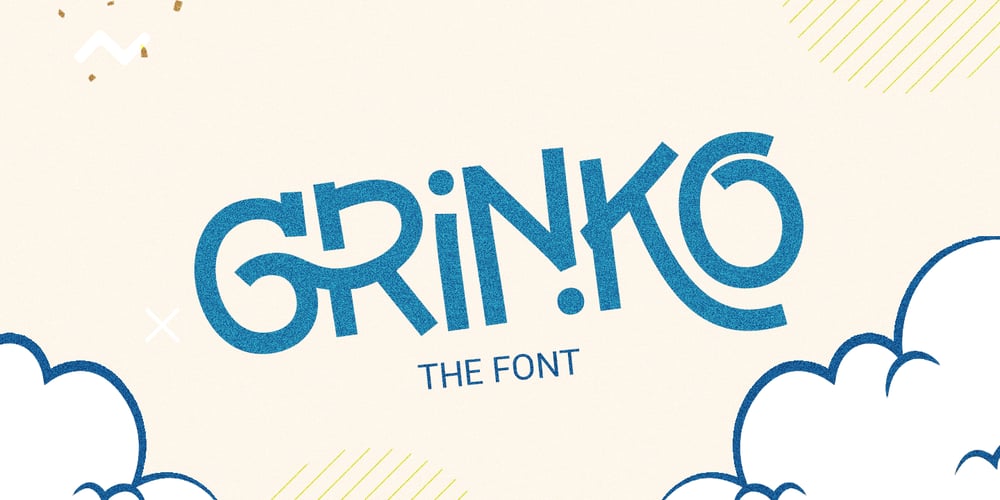
Grinko Font Family was designed by Jarnawi Saja and published by Grontype. Grinko contains 1 styles and family package options. Grinko is a new unique decorative san serif font, created with bold and equal stroke all around with sharp edges that provide strong and straight feeling. This font extend some ligature and alternative glyphs to give you optional choices in creating typography projects. Grinko font is perfect for branding design, logotype, logo tagline, flyer header, magazine title, or even short quote for layouting ideas.Grinko features: